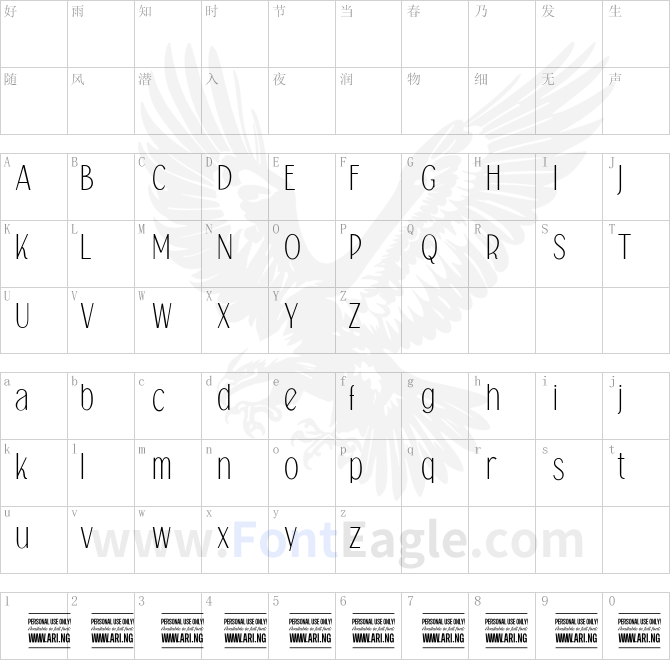
Falkin Sans PERSONAL Regular.ttf Font Image
- Font name:Falkin Sans PERSONAL
- Font Full Name:Falkin Sans PERSONAL
Falkin Sans PERSONAL Regular.ttf Characters Sample